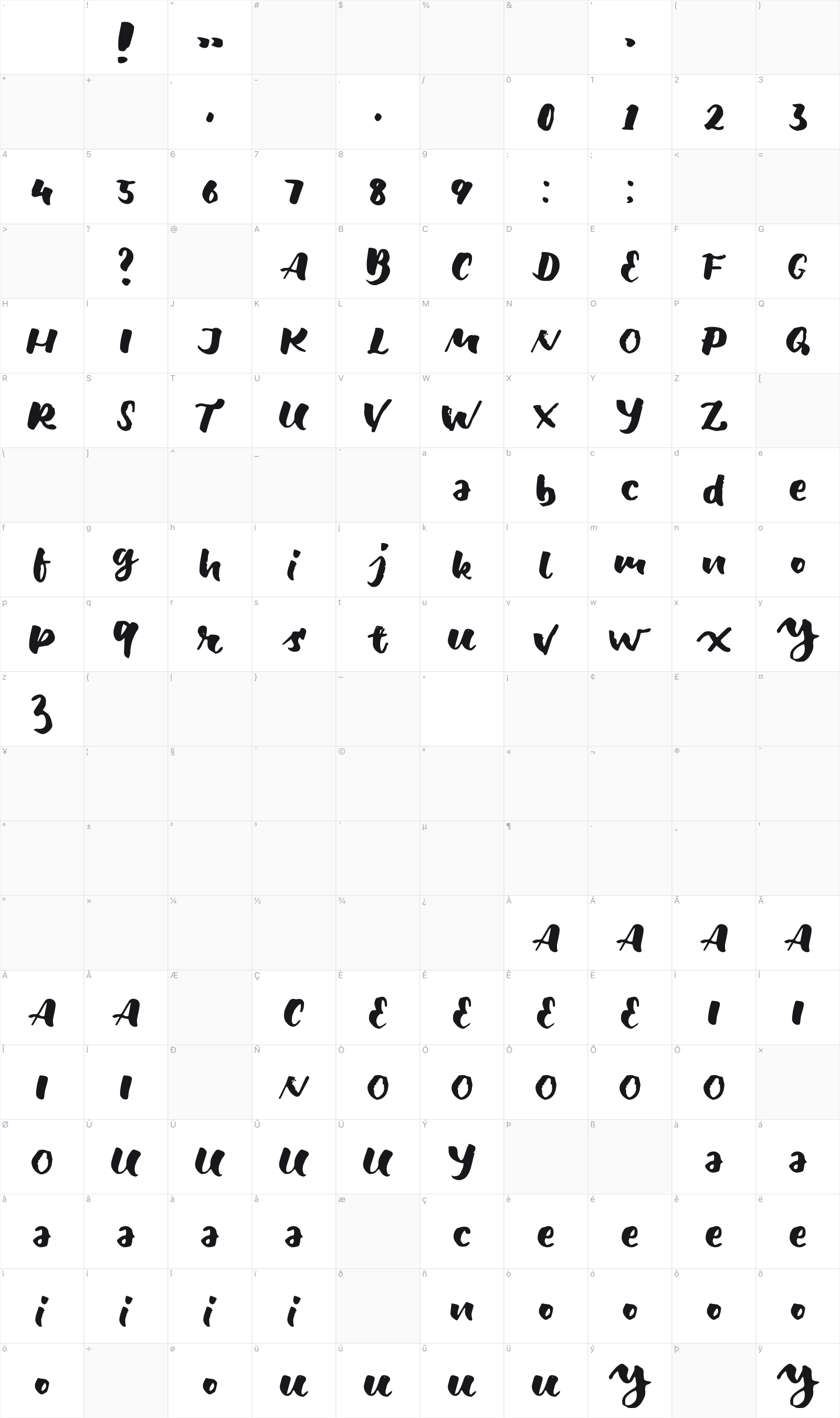
Balmonde
Balmonde is a bold brush script with thick, expressive strokes and the kind of loose, inky texture that reads as genuinely hand-lettered rather than mechanical. The connected cursive flow and slightly irregular edges give it warmth and energy without feeling sloppy. It works well for logotypes, packaging, and any headline that needs a personal, crafted touch.